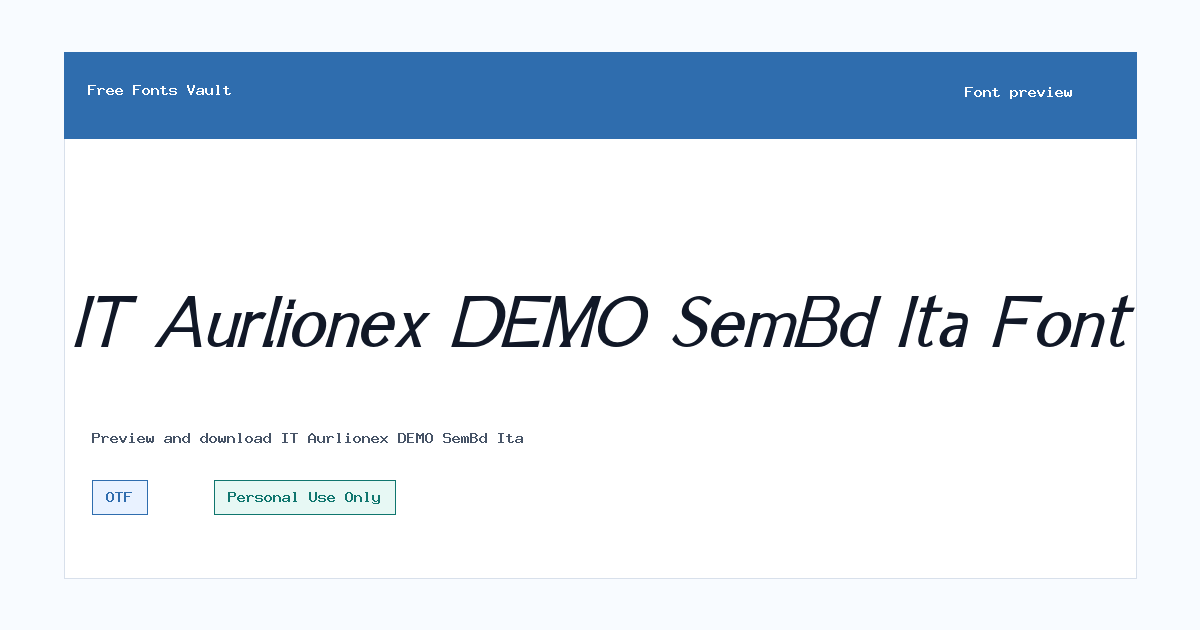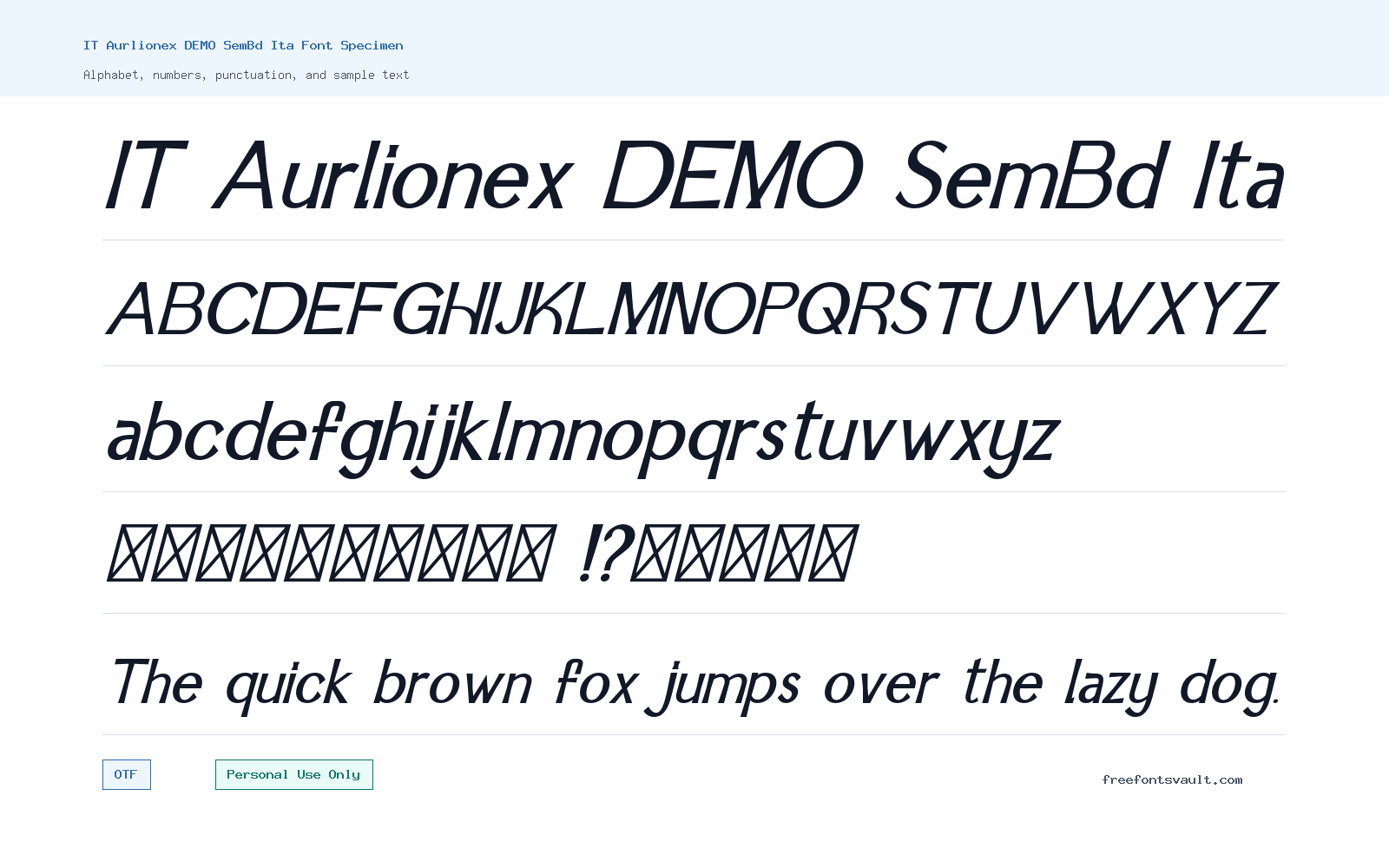
IT Aurlionex DEMO SemBd Ita
IT Aurlionex DEMO SemBd Ita font.
IT Aurlionex DEMO SemBd Ita is a personal-use demo font from Indotype Foundry. It is best approached as a preview and testing cut: useful for trying the look in headlines, display text, and design mockups before deciding whether the full licensed family fits your project.
About IT Aurlionex DEMO SemBd Ita
IT Aurlionex DEMO SemBd Ita appears to be part of the IT Aurlionex Sans Serif Font Family, with the name pointing to a demo semibold italic style. That makes it a good candidate for short, slanted display settings where you want a clean sans serif voice with a little movement. Because the page identifies it as a demo and personal-use font, it should be treated as a trial option rather than a complete production license. Use the preview box to test the exact words you plan to design with, especially if the text includes punctuation, numbers, mixed case, or accented characters.
The semibold italic direction can work well when a design needs emphasis without switching to a decorative script or a very heavy headline face. Try it for poster subheads, event graphics, editorial pull quotes, social media titles, presentation covers, and logo roughs. For logo work, use it only during early exploration unless you have the right commercial license from the foundry. Italic sans serif styles can add speed and personality, but they also need breathing room. Avoid squeezing it into dense paragraphs or small mobile UI labels until you have tested readability at the actual size.
For designers building a quick layout, IT Aurlionex DEMO SemBd Ita can help test a modern brand direction with a clear, angled tone. It may suit short phrases, product mockups, web hero sections, packaging studies, and portfolio experiments. Keep the text brief and let the letterforms carry the emphasis. If a headline starts to feel too busy, pair it with a plain upright sans serif for body copy and navigation. A simple neutral text face will usually balance an italic display style better than another expressive font.
When pairing this font, think contrast and restraint. Use IT Aurlionex DEMO SemBd Ita for the part of the message that needs attention, then choose a quieter companion for longer reading. A regular-weight sans serif can keep posters and web mockups organized, while a readable serif may add editorial contrast in magazine-style layouts. Avoid pairing it with another slanted or highly stylized typeface unless the design is intentionally energetic; too much motion can make a layout harder to scan.
- Personal-use demo font connected to the IT Aurlionex Sans Serif Font Family
- Name indicates a semibold italic demo style, useful for short emphasized text
- Clean sans serif direction suited to headline previews, mockups, and visual studies
- Poster headlines and subheads
- Logo concept exploration
- Web hero mockups
- Social media graphics
- Editorial pull quotes
- Presentation covers
- Packaging or label drafts
- Short brand-style text tests
What kind of font is IT Aurlionex DEMO SemBd Ita?
It is identified with the IT Aurlionex Sans Serif Font Family, and the name suggests a demo semibold italic style.
What is this font best used for?
It is most useful for short display text such as posters, subheads, social graphics, presentation titles, web mockups, and early logo concepts.
Should I use this font for body text?
It is better suited to short emphasized text. For long paragraphs, pair it with a more neutral and readable body font.